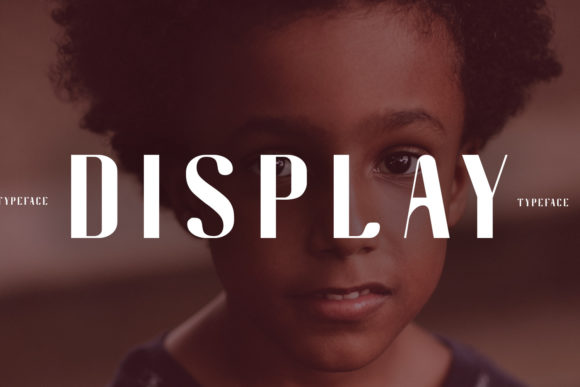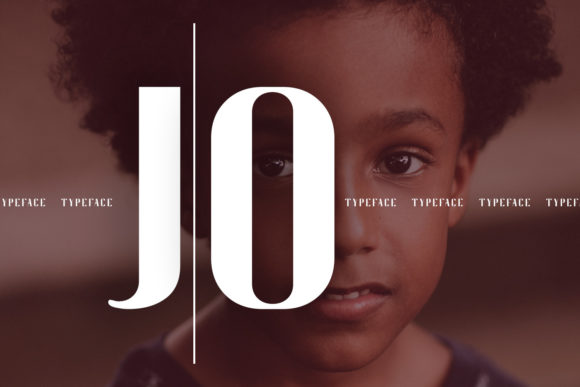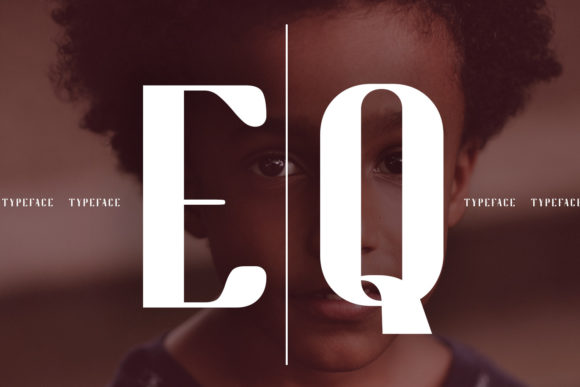
Evoke Font: Elevate Your Designs with a Modern and Creative Display Font
In the world of design, typography plays a crucial role in conveying messages, expressing emotions, and creating visual identities. For designers and crafters looking to add a touch of sophistication and originality to their projects, the Evoke Font is an excellent choice. This modern and creative display font is designed to make a statement, and in this article, we’ll explore its features, benefits, and uses.
What is Evoke Font?
Evoke is a bold and atypical display font that is perfect for creative projects. Its unique design makes it stand out from traditional fonts, allowing designers to add a touch of personality to their work. Whether you’re working on a logo, branding materials, or marketing collateral, Evoke Font is sure to make your creation look original and sophisticated.
Key Features of Evoke Font
- Modern and Creative Design: Evoke Font boasts a modern and creative design that is sure to grab attention. Its bold and atypical style makes it perfect for designers looking to add a touch of personality to their work.
- Bold and Atypical: Unlike traditional fonts, Evoke Font is bold and atypical, making it perfect for creative projects that require a unique touch.
- High Versatility: Evoke Font is highly versatile, making it suitable for a wide range of design projects, from logos and branding materials to marketing collateral and more.
- Easy to Read: Despite its bold and creative design, Evoke Font is easy to read, making it perfect for use in various design applications.
Benefits of Using Evoke Font
So, why should designers and crafters choose Evoke Font for their projects? Here are some benefits of using this modern and creative display font:
- Adds Personality to Your Work: Evoke Font allows designers to add a touch of personality to their work, making it perfect for creative projects.
- Enhances Visual Identity: With its bold and atypical design, Evoke Font can help enhance the visual identity of a brand, making it more memorable and recognizable.
- Perfect for Creative Projects: Whether you’re working on a logo, branding materials, or marketing collateral, Evoke Font is perfect for creative projects that require a unique touch.
- Easy to Use: Evoke Font is easy to use and can be easily integrated into various design applications.
Use Cases for Evoke Font
Evoke Font is highly versatile and can be used in various design applications. Here are some use cases for this modern and creative display font:
- Logo Design: Evoke Font is perfect for logo design, allowing designers to create unique and memorable logos that stand out.
- Branding Materials: From business cards to brochures, Evoke Font can be used to create branding materials that are both creative and sophisticated.
- Marketing Collateral: Evoke Font is perfect for marketing collateral, including posters, flyers, and social media graphics.
- Packaging Design: With its bold and atypical design, Evoke Font can be used in packaging design to create eye-catching and memorable packaging.
Tips for Using Evoke Font
To get the most out of Evoke Font, here are some tips for using this modern and creative display font:
- Use it Sparingly: Due to its bold and atypical design, Evoke Font should be used sparingly to avoid overwhelming the design.
- Pair it with Other Fonts: Evoke Font can be paired with other fonts to create a unique and visually appealing design.
- Experiment with Colors: Evoke Font can be used in various colors to create a design that is both creative and sophisticated.
| Font Name | Evoke Font |
| Author | BeeType |
In conclusion, Evoke Font is a modern and creative display font that is perfect for designers and crafters looking to add a touch of sophistication and originality to their projects. With its bold and atypical design, Evoke Font is sure to make any creation look original and sophisticated. Whether you’re working on a logo, branding materials, or marketing collateral, Evoke Font is an excellent choice.